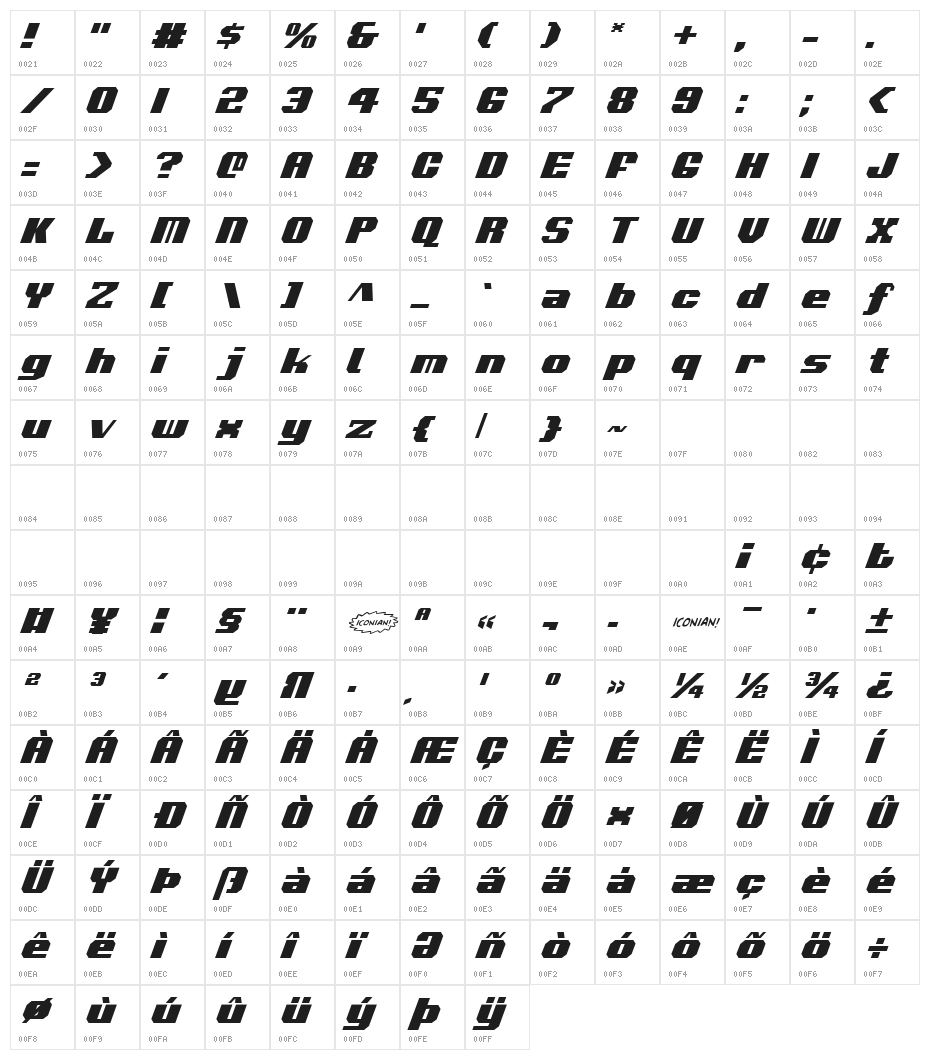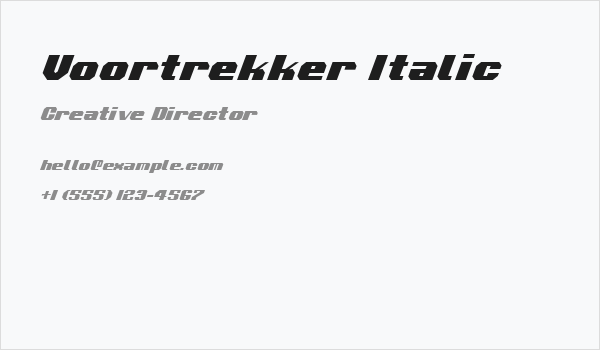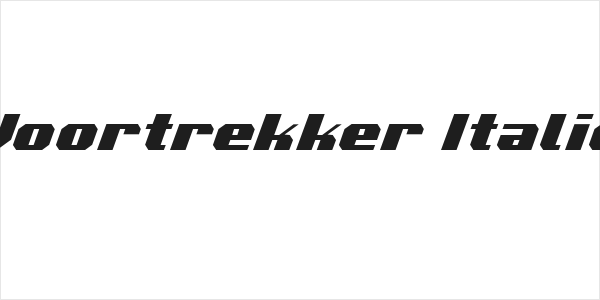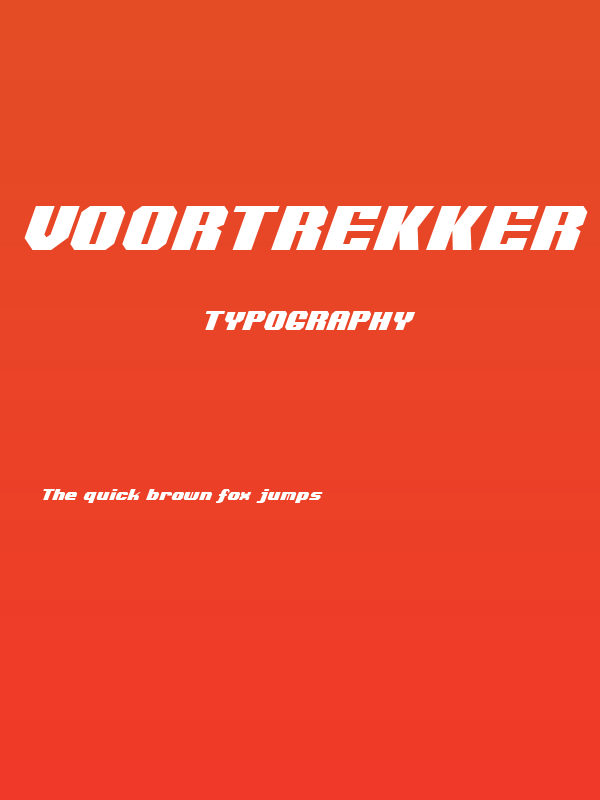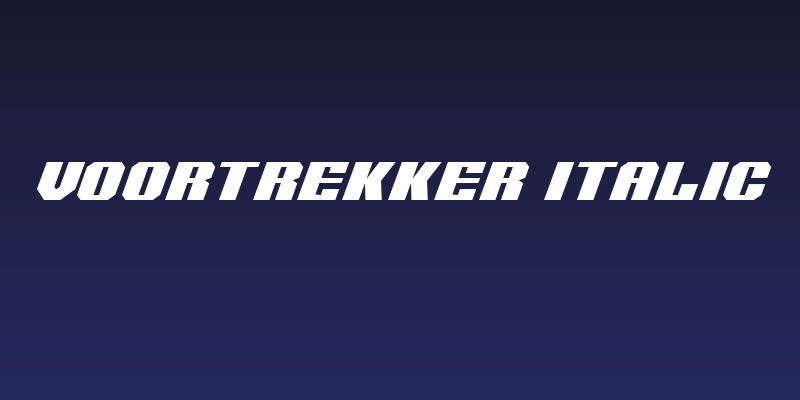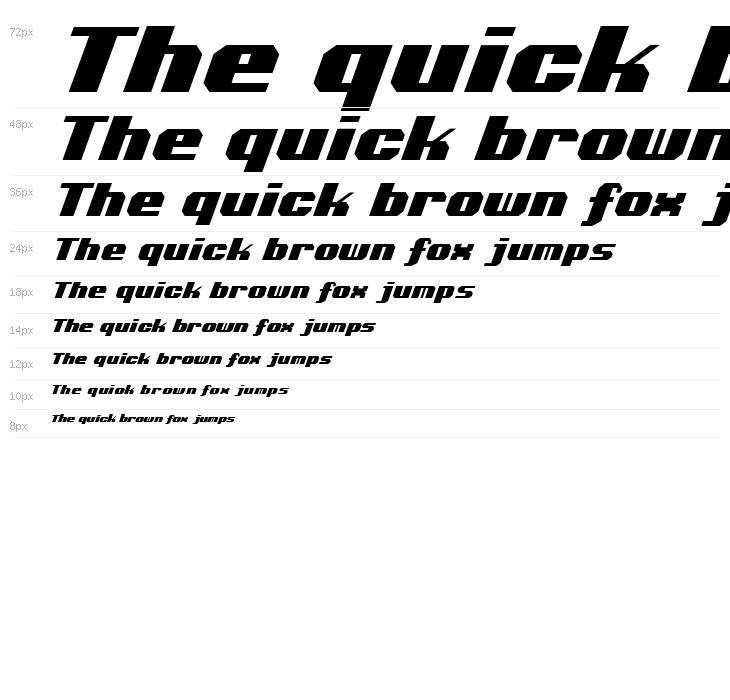
Voortrekker Italic Font
Voortrekker Italic Description
This font features a bold and dynamic style with a strong italic slant, giving it a sense of movement and energy. The characters are robust and angular, with sharp edges and a geometric structure that conveys a modern and assertive appearance. The uppercase and lowercase letters maintain a consistent design, ensuring readability while adding a unique flair. Numbers and special characters are crafted with the same boldness, making them stand out effectively. This font is ideal for projects that require a striking and impactful visual presence.
| Proposed Projects | Perfect for sports branding, action movie posters, dynamic logos, and attention-grabbing headlines. |